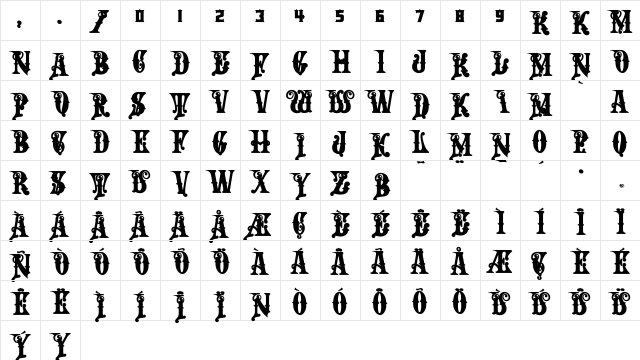
Rough Riders Alt Fill Regular
Design Context for Rough Riders Alt Fill Typeface
Rough Riders Alt Fill embraces imperfection — its rough, textured character adds raw authenticity to designs that want to feel lived-in and unconventional.
Suited to punk-influenced zines, underground music branding, streetwear, and raw, anti-corporate design.
Pro Tip: Pair Rough Riders Alt Fill with intentionally raw or lo-fi design elements. Fighting against it with overly polished surroundings will undermine its personality.